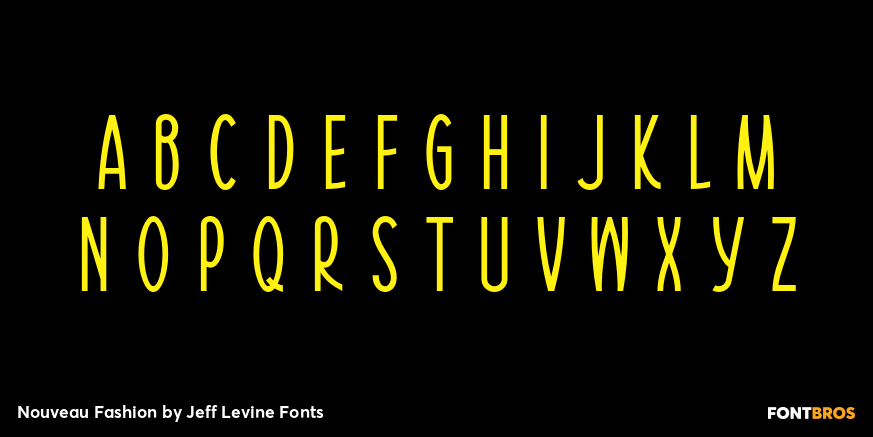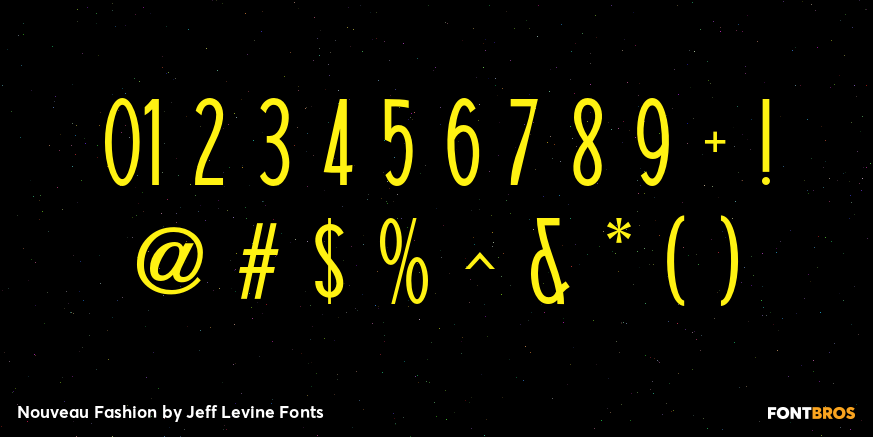
Nouveau Fashion
A pleasant Art Nouveau hand lettered title is featured on the sheet music cover for "You Brought A New Kind of Love to Me". The song is from the 1930 Paramount film "The Big Pond" featuring Maurice Chevalier and Claudette Colbert.
The original lettering was done with a round point pen nib, and showed a lot of small inconsistencies. For the digital version it has been "tightened up" a bit and is now available as Nouveau Fashion JNL, in both regular and oblique versions.